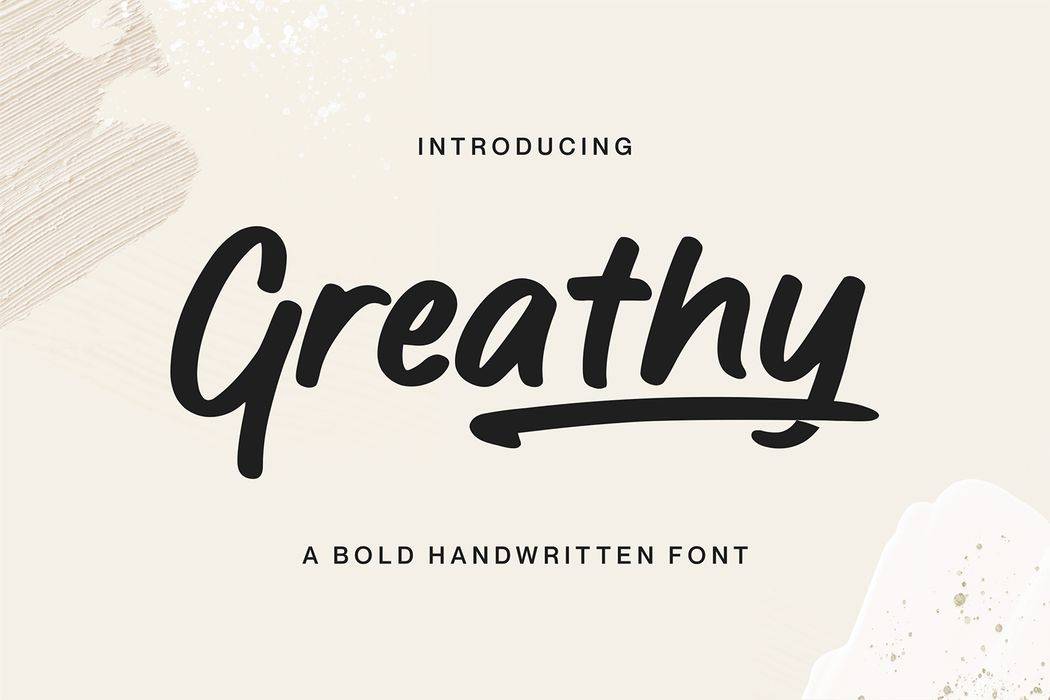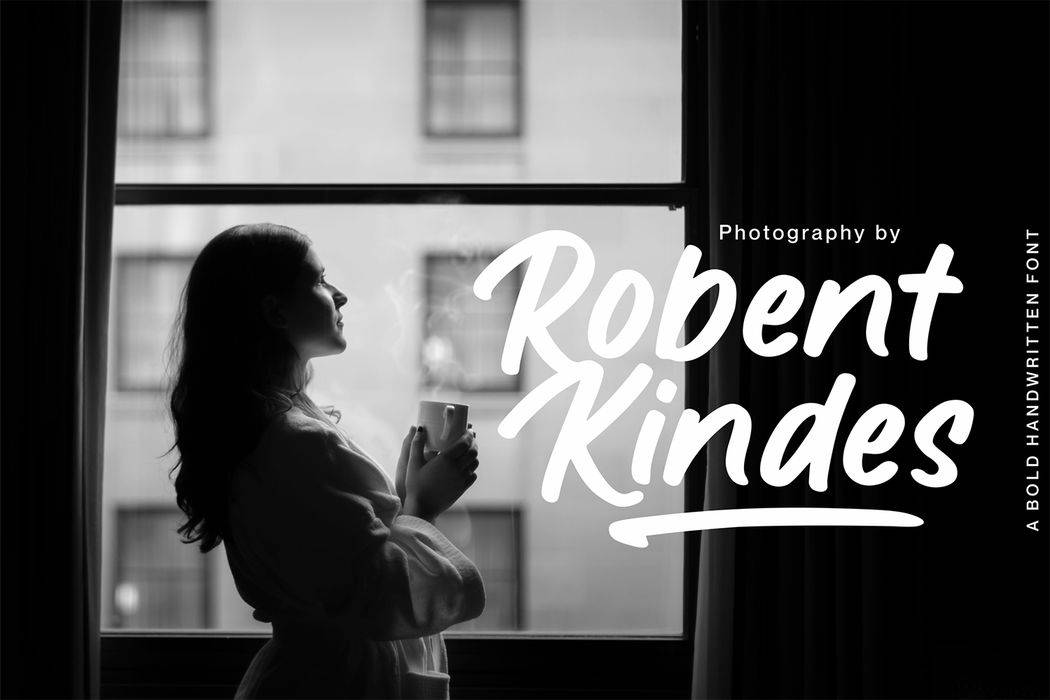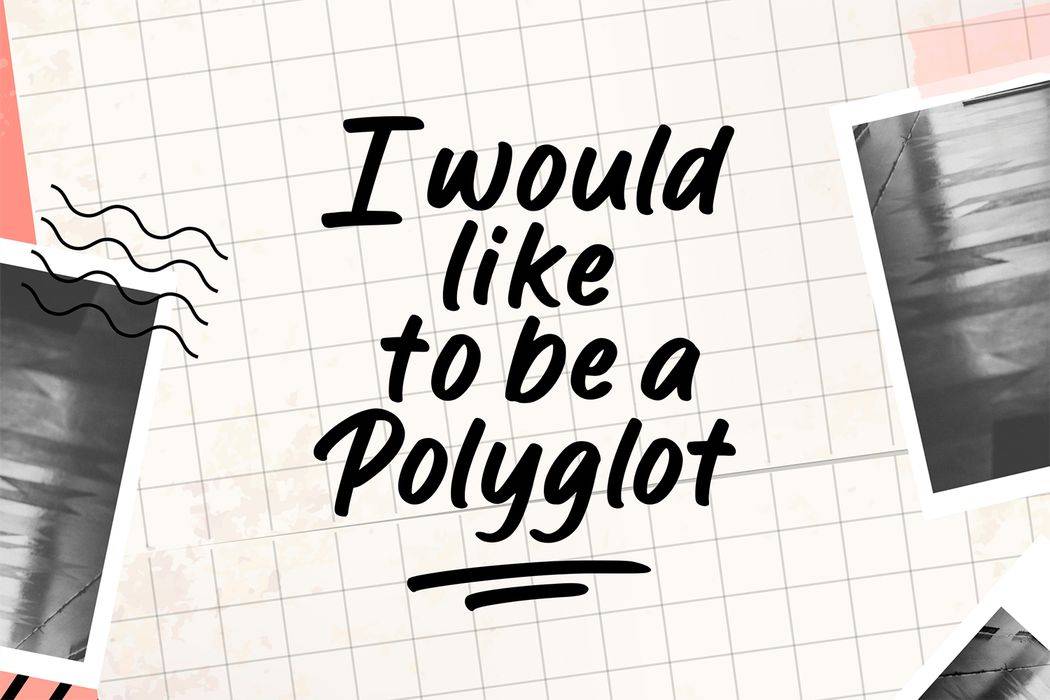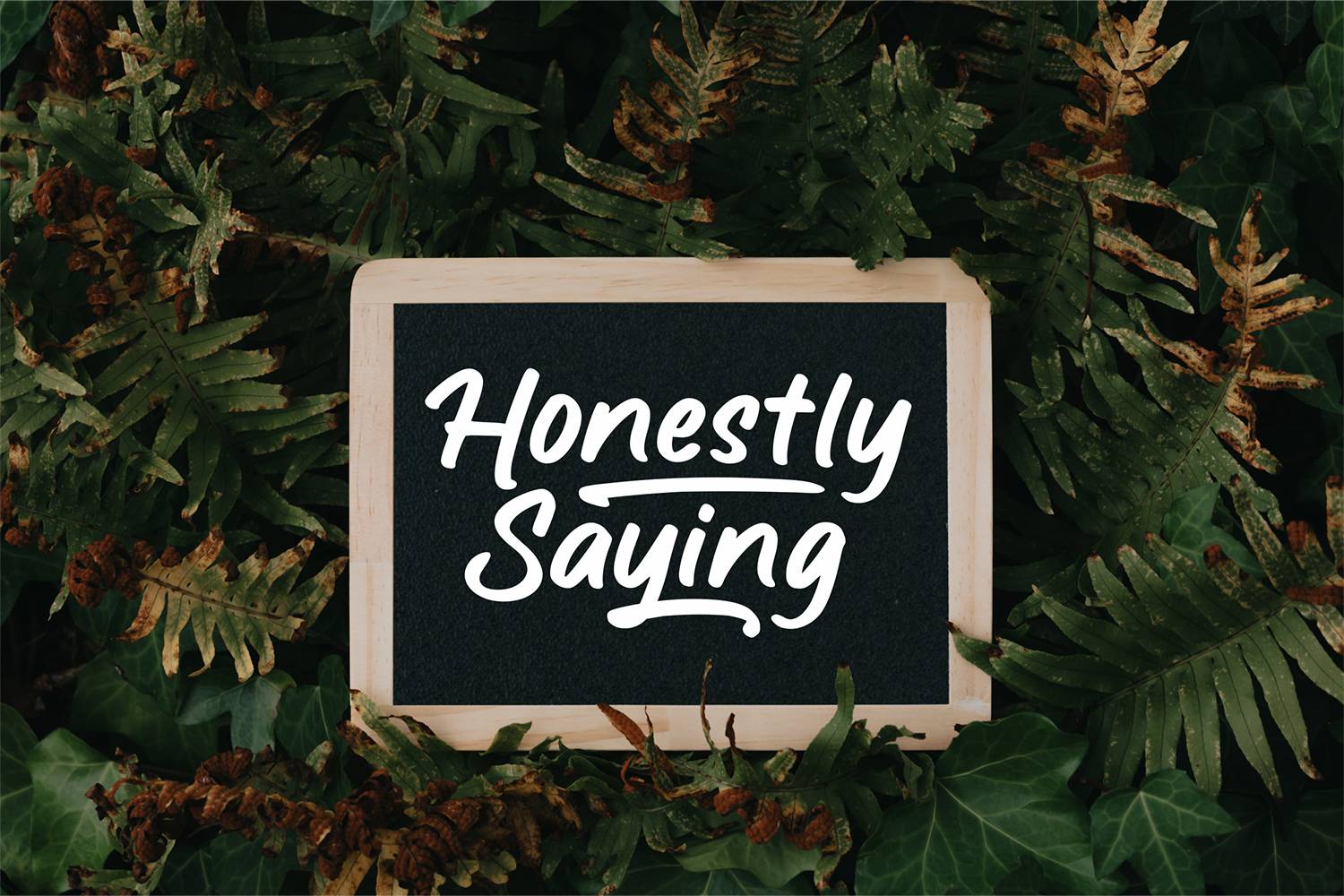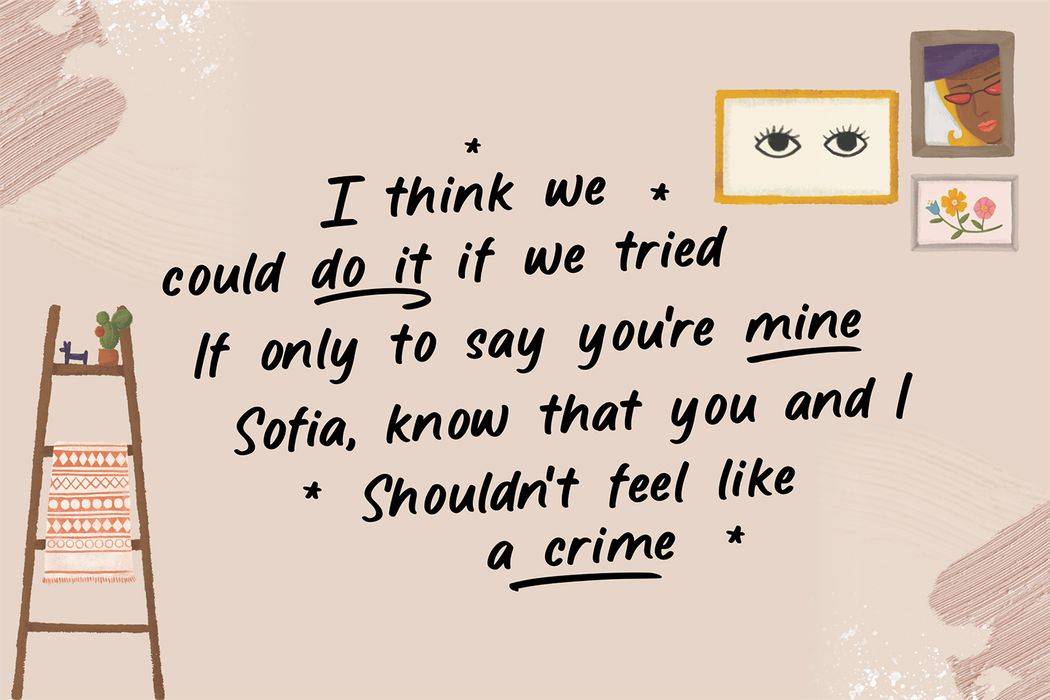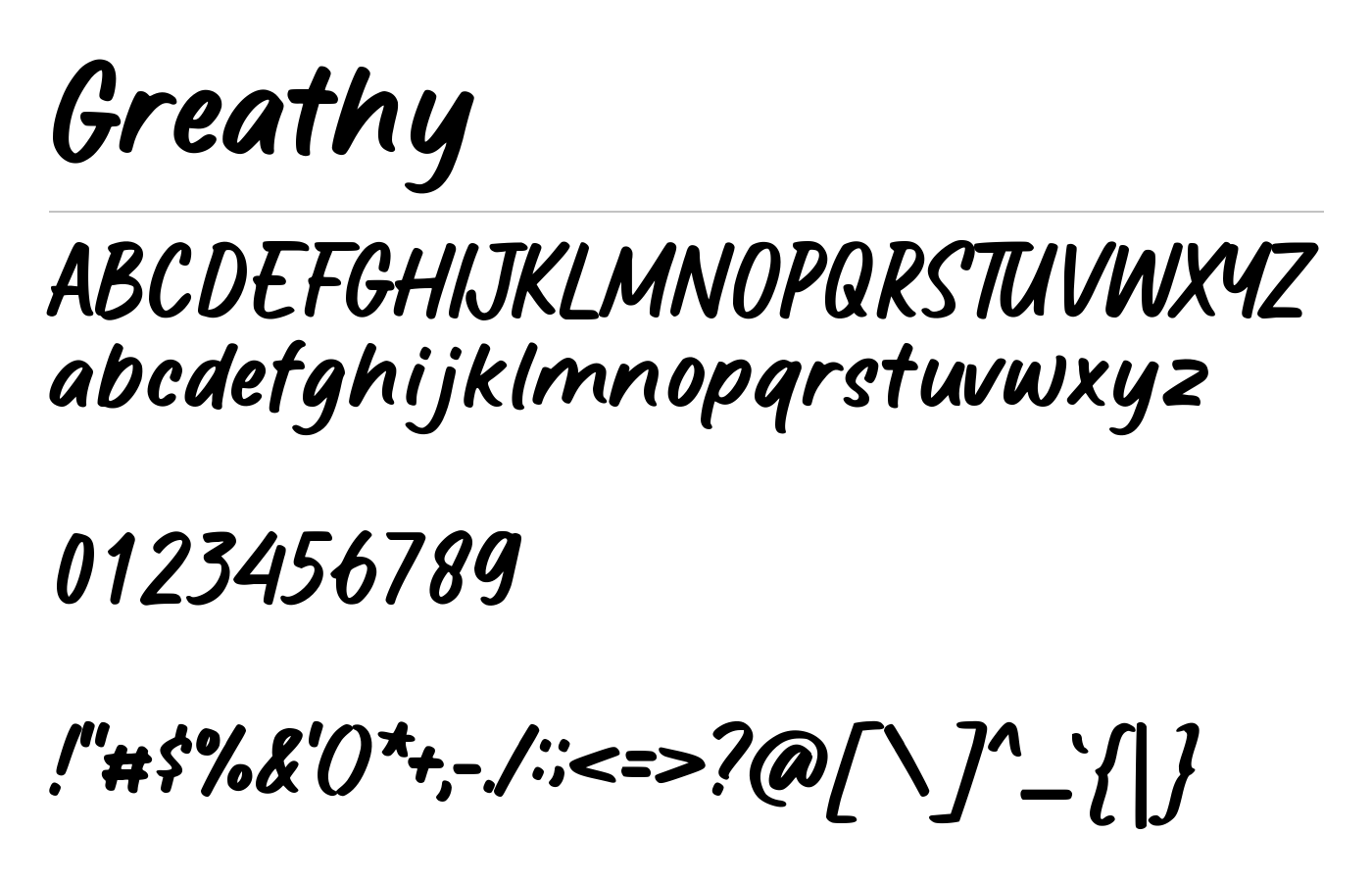
Greathy is a lively and casual script font with a friendly, handwritten feel. Its smooth, rounded strokes and upright italic angle create an inviting, approachable style perfect for branding, packaging, and informal headlines. This font works well when you want to convey warmth and personality without sacrificing readability.
Greathy Font
About Greathy Font
| Font family | Greathy Font |
| Release date | 2021-10-21 |
| Designer | Allouse Studio |